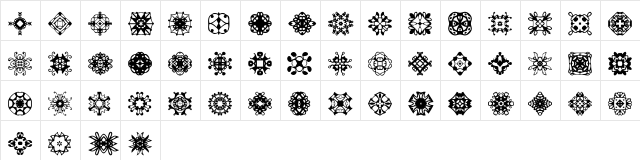
Twiddles Regular Free Font
Twiddles Regular
Design Context for Twiddles
Twiddles is a composed and adaptable typeface that performs quietly and consistently across a wide range of design contexts.